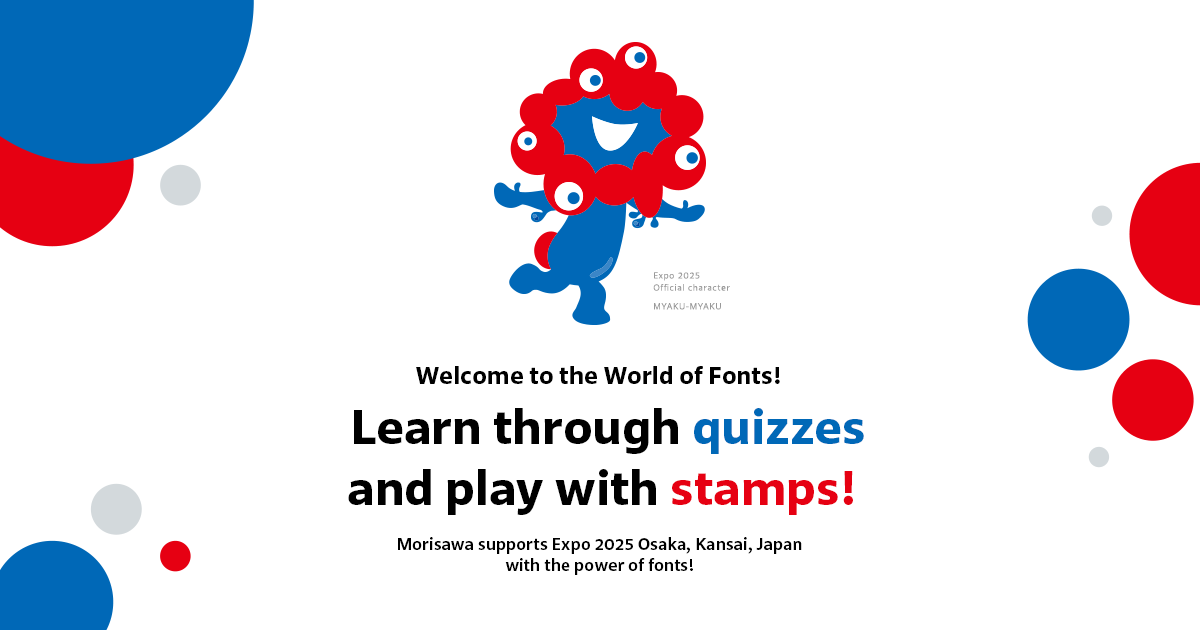
Morisawa Launches “Pick-a-Font Stamp” Website for Creating Your Own Digital Stamps with Your Favorite Words, Designs, and Fonts to Commemorate Expo 2025 Osaka, Kansai, Japan
Morisawa Inc. (President and CEO: Akihiko Morisawa, Head Office: 2-6-25 Shikitsuhigashi, Naniwa-ku, Osaka, Tel: 06-6649-2151, hereinafter "Morisawa") has launched a special website commemorating its partnership as a PR Bronze Partner for Expo 2025 Osaka, Kansai, Japan (hereinafter “Expo 2025”). The website features the “Pick-a-Font Stamp” service that lets users create personalized digital stamps by choosing their favorite font.
Create Your Own Digital Stamp with Your Favorite Font – “Pick-a-Font Stamp” Now Available
Pick-a-font Stamp is a fun and easy-to-use web-based tool that allows users to create and download their own original digital stamp image by combining frame designs—including motifs inspired by Expo 2025 Osaka, Kansai, Japan—with their favorite text or name typeset in typefaces developed by Morisawa. Users can experience how the impression of words can change simply by switching fonts. Downloaded digital stamps can be used freely, not only as a personal seal (electronic signature), but also as SNS icons, in message cards, or edited into photos for creative expression.
You can choose from 12 different Morisawa typefaces, all of which are representative of the company’s universal design (UD) fonts. These include:
- UD Shin Go – Used in official signage throughout the Expo venue
- Kanteiryu – Popular for fan signs and decorative purposes
- SeikaiSho CB1 – Frequently used in business settings
- UD Digital Kyokasho-tai and UD Gakusan Maru Gothic – Both gaining attention in educational contexts
- Penpal – A hand-drawn style font that’s been rising in popularity in recent years
These font choices allow users to create digital stamps that suit their personality and purpose.
Morisawa Inc. is a typeface developer committed to its mission: “Contributing to society through typography.” The company is known for developing Universal Design (UD) fonts such as the BIZ UD font family (bundled with Windows 10 and later), and UD Digital Kyokasho-tai, which are designed to be easier to read for a wider audience.
■ About Morisawa’s UD Fonts
Morisawa’s UD fonts are developed based on three core principles:
- Clarity in letterform
- High readability in continuous text
- Minimizing misreading of characters
Specific design features include larger voicing marks (dakuten and handakuten) to improve distinction, and clear separation of similar character silhouettes for improved legibility.
Morisawa has conducted joint studies with third-party institutions to assess and verify the legibility and visibility of its UD fonts through comparative research.